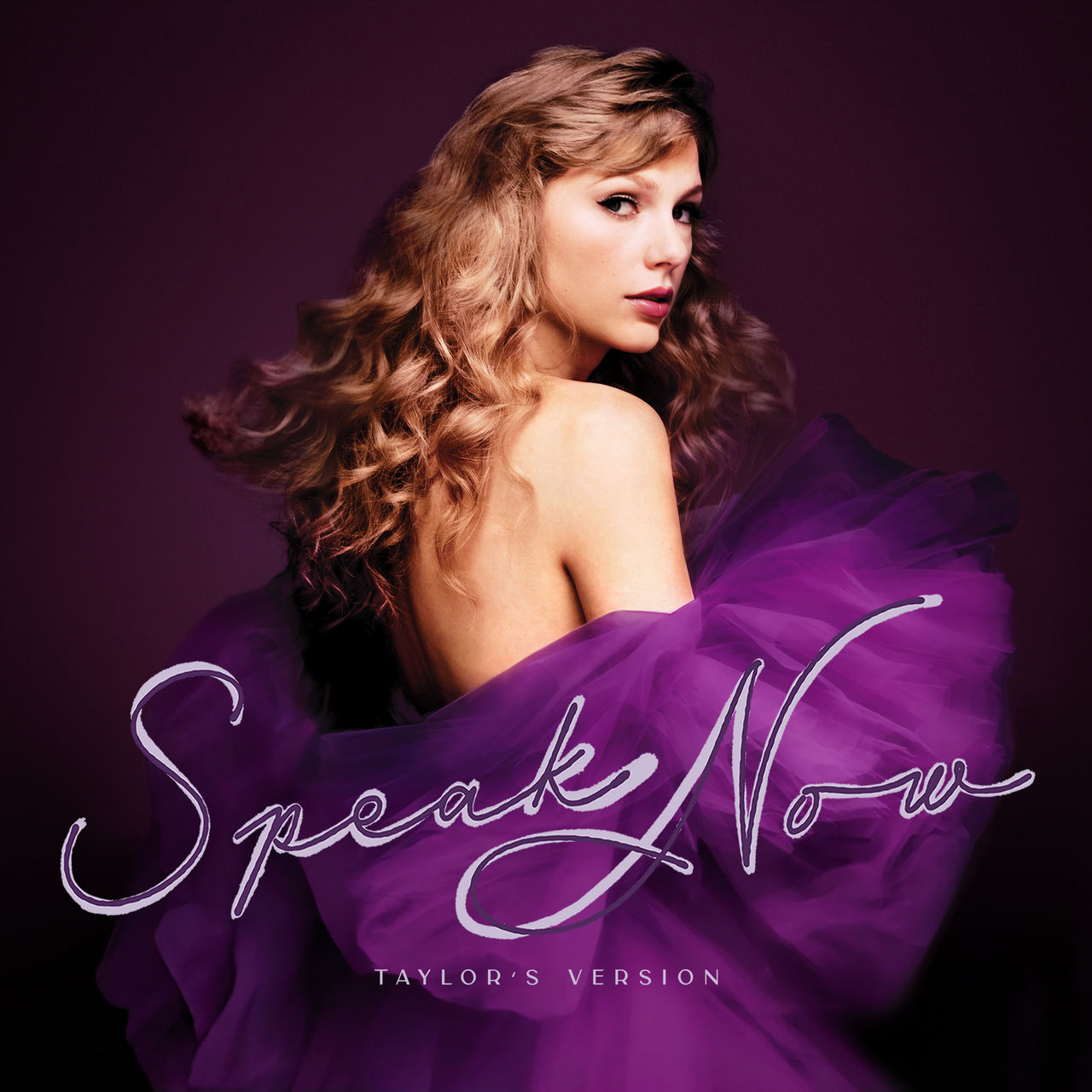
Speak Now Tv Font
Speak Now Tv Font - May 06, 2023 at 06:28. Speak now font is used to create the speak now logo album. Web for the word “ speak now ” which is cursive lettering, mina medium font was used. Resistenza published the font designed by. Web calligraphy, display, handwriting font, logo font.
Resistenza published the font designed by. Web for the word “ speak now ” which is cursive lettering, mina medium font was used. Web calligraphy, display, handwriting font, logo font. May 06, 2023 at 06:28. Speak now font is used to create the speak now logo album.
Web calligraphy, display, handwriting font, logo font. Speak now font is used to create the speak now logo album. Resistenza published the font designed by. Web for the word “ speak now ” which is cursive lettering, mina medium font was used. May 06, 2023 at 06:28.
May 06, 2023 at 06:28. Resistenza published the font designed by. Speak now font is used to create the speak now logo album. Web for the word “ speak now ” which is cursive lettering, mina medium font was used. Web calligraphy, display, handwriting font, logo font.
Resistenza published the font designed by. Speak now font is used to create the speak now logo album. May 06, 2023 at 06:28. Web for the word “ speak now ” which is cursive lettering, mina medium font was used. Web calligraphy, display, handwriting font, logo font.
Speak now font is used to create the speak now logo album. Web for the word “ speak now ” which is cursive lettering, mina medium font was used. Web calligraphy, display, handwriting font, logo font. Resistenza published the font designed by. May 06, 2023 at 06:28.
Speak now font is used to create the speak now logo album. Resistenza published the font designed by. Web for the word “ speak now ” which is cursive lettering, mina medium font was used. Web calligraphy, display, handwriting font, logo font. May 06, 2023 at 06:28.
May 06, 2023 at 06:28. Speak now font is used to create the speak now logo album. Resistenza published the font designed by. Web for the word “ speak now ” which is cursive lettering, mina medium font was used. Web calligraphy, display, handwriting font, logo font.
Web calligraphy, display, handwriting font, logo font. Web for the word “ speak now ” which is cursive lettering, mina medium font was used. May 06, 2023 at 06:28. Resistenza published the font designed by. Speak now font is used to create the speak now logo album.
Web for the word “ speak now ” which is cursive lettering, mina medium font was used. Resistenza published the font designed by. Speak now font is used to create the speak now logo album. May 06, 2023 at 06:28. Web calligraphy, display, handwriting font, logo font.
Resistenza published the font designed by. Web for the word “ speak now ” which is cursive lettering, mina medium font was used. Web calligraphy, display, handwriting font, logo font. Speak now font is used to create the speak now logo album. May 06, 2023 at 06:28.
Web for the word “ speak now ” which is cursive lettering, mina medium font was used. May 06, 2023 at 06:28. Speak now font is used to create the speak now logo album. Resistenza published the font designed by. Web calligraphy, display, handwriting font, logo font.
May 06, 2023 at 06:28. Resistenza published the font designed by. Speak now font is used to create the speak now logo album. Web for the word “ speak now ” which is cursive lettering, mina medium font was used. Web calligraphy, display, handwriting font, logo font.
Speak Now Font Is Used To Create The Speak Now Logo Album.
Resistenza published the font designed by. May 06, 2023 at 06:28. Web for the word “ speak now ” which is cursive lettering, mina medium font was used. Web calligraphy, display, handwriting font, logo font.